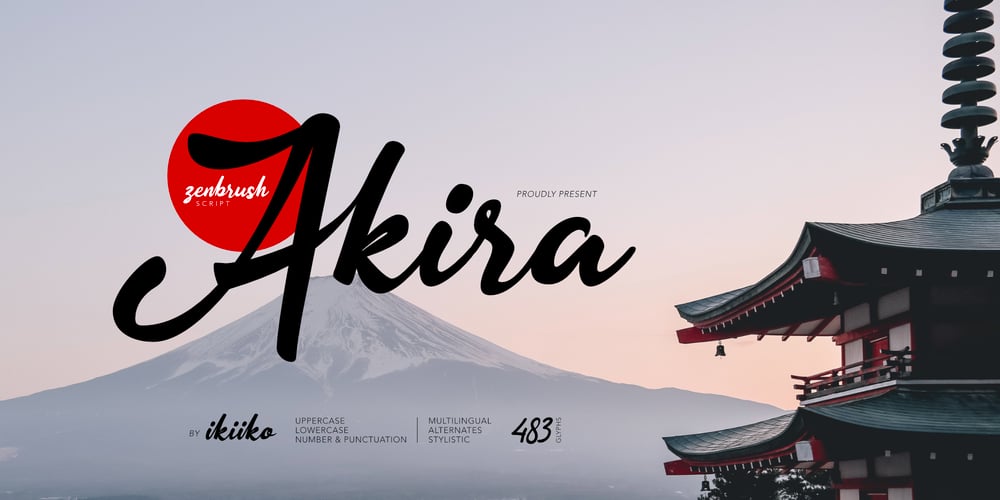
Akira Font Family was designed by Wahyu Eka Prasetya, Andhika Pradana and published by IKIIKOWRK. Akira contains 1 styles and family package options. Introducing Akira – Zenbrush Script, created by ikiiko.Calm brush script type, adapted from Japanese zen culture. Akira typeface uses firm lines with strong curves with lots of alternates & stylistic options to choose. This typeface is perfect for an elegant logo, poster design, beauty product, packaging product, community logo, magazine, quotes, or simply as a stylish text overlay to any background image.What’s included? Uppercase & Lowercase Number & Punctuation Alternates & Stylistic Multilingual Support Enjoy our font and if you have any questions, you can contact us by email : ikiikowrk@gmail.com